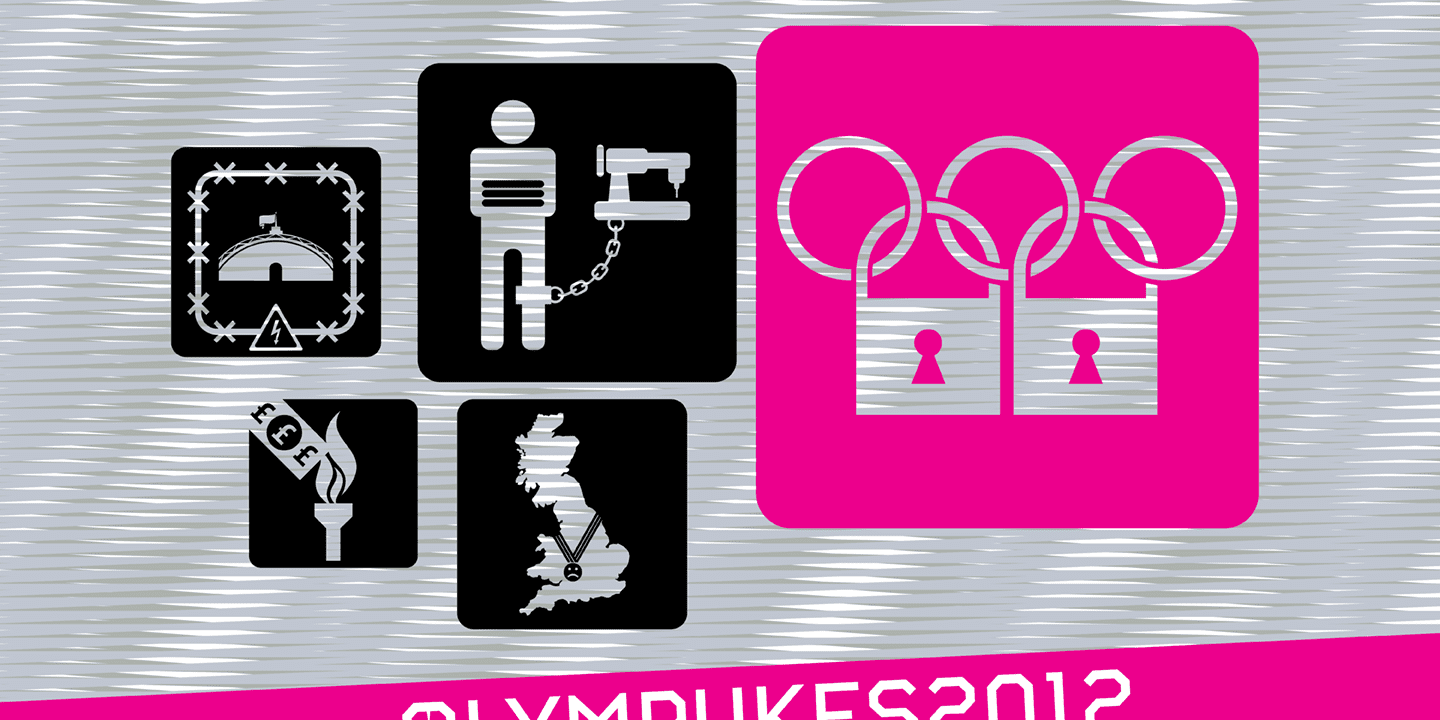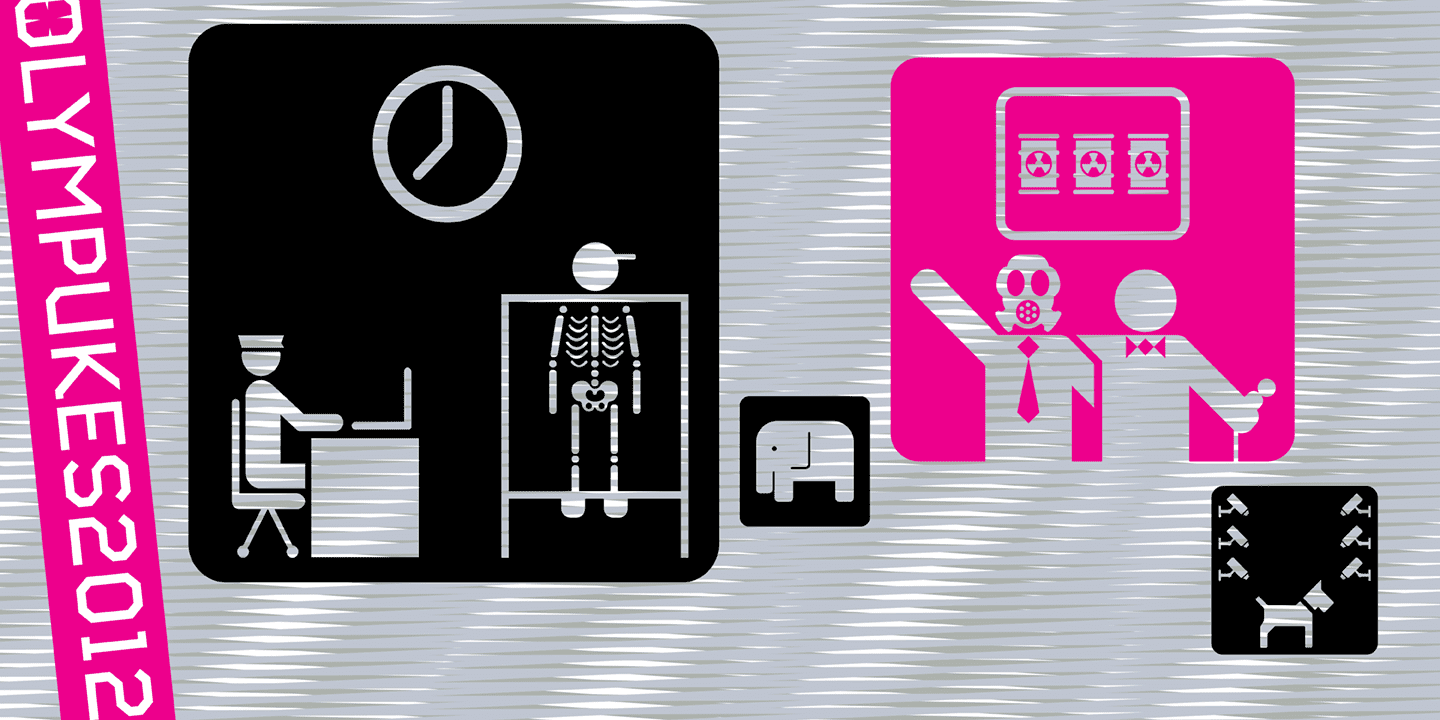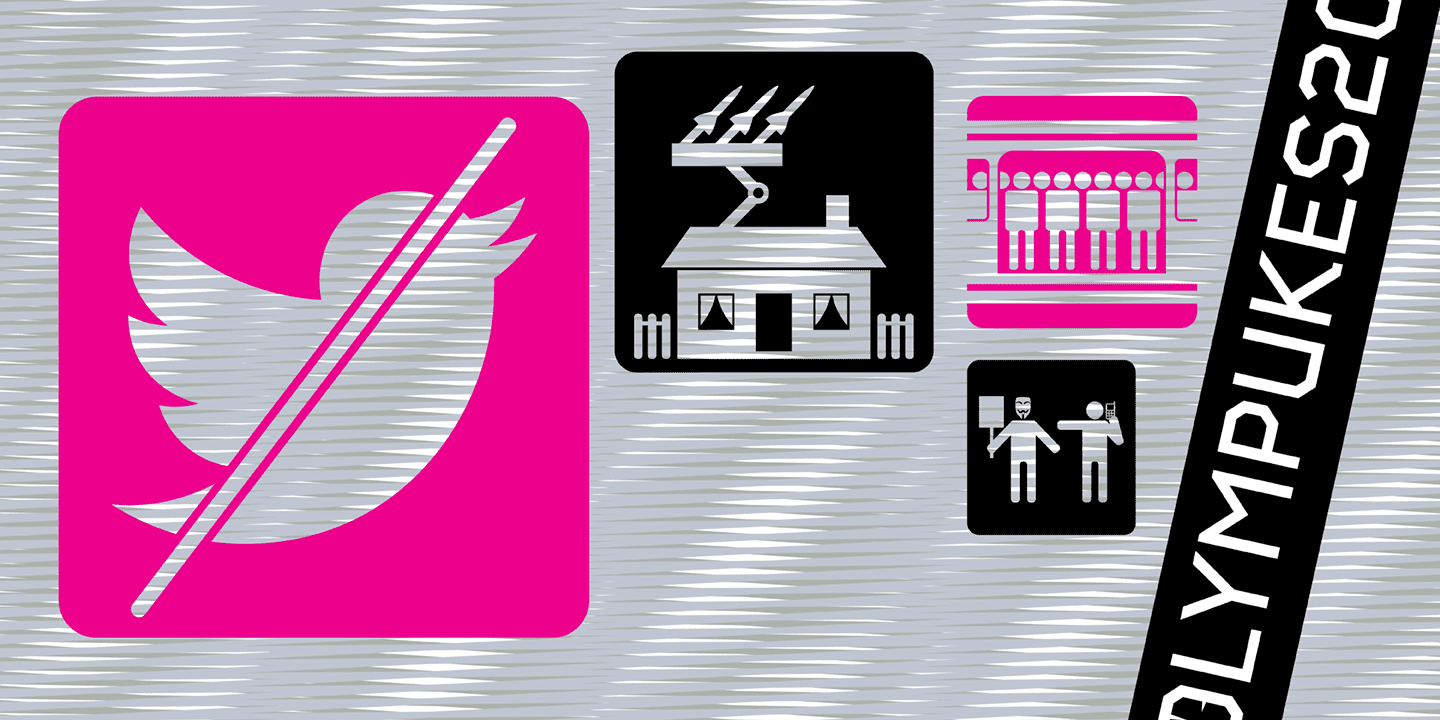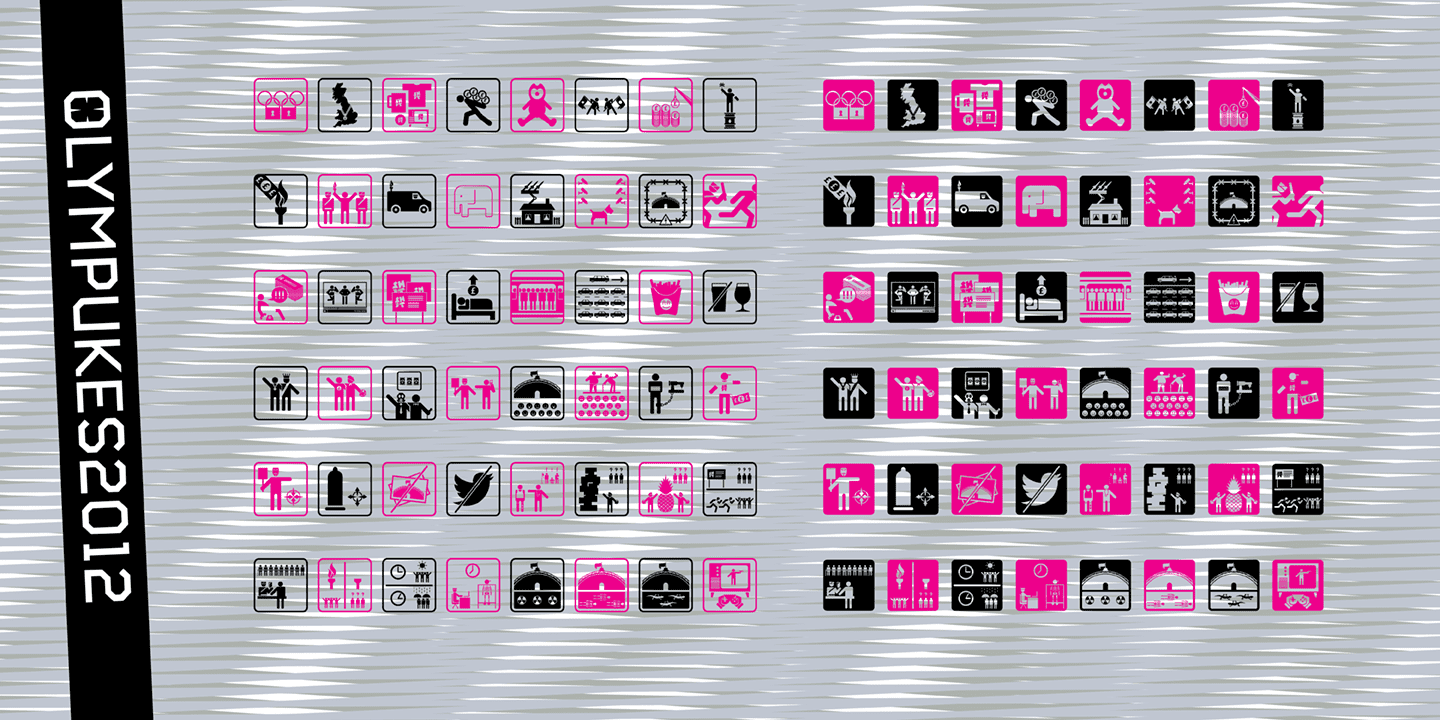
Released on the occasion of the 2012 London Olympics, Olympukes 2012 was a new set of pictograms telling the ‘real’ story of the Olympics and extending the uno cial project that began in 2004. The occasion of the London games provided an opportunity to revisit the complex contradictions of the modern Olympics and to acknowledge the geopolitical shifts of the intervening eight years. The 2012 games arrived at a time of great economic and political uncertainty for the nation and Europe. Greece – the host of the 2004 games – was now located at Ground Zero of a disintegrating Eurozone and the United Kingdom was two years into a programme of austerity enacted by the coalition government of Conservatives and Liberal Democrats. Given that the previous London Olympics had been held in 1948, in a climate of recovery and austerity after a devastating World War (1948's Olympiad was dubbed the 'Austerity Games') there was a sick irony to the 2012 games' arrival.
The suppression of human rights in order to deliver the perfect games for PRoC's Beijing games shocked no-one and yet, in London, the security measures seemed grossly excessive. Then again, in a country with an estimated 1.8 million cctv cameras, perhaps we shouldn’t have been so surprised. Another aspect of the Olympics that returned for 2012 was the unfettered commercialism – if you think the Games are about pure sport, about noble human endeavour, think again.